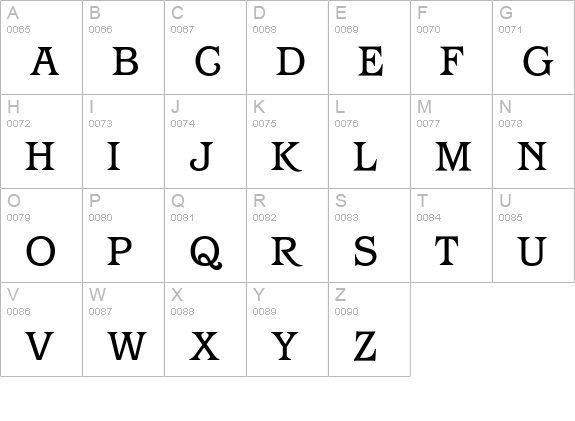
Barcelona* Book is a comfortable, highly readable variant in the Barcelona* typeface family \xE2\x80\x94 well suited to long-form body text, articles, and editorial content.
Barcelona Book font is a modern and elegant typeface that exudes sophistication and style. Its sleek lines and sharp edges make it perfect for a wide range of design projects, from branding to editorial design. Barcelona Book font strikes the perfect balance between readability and personality, making it a versatile choice for both print and digital media. What sets Barcelona Book font apart is that it is available for free download at FontsMarket.com, allowing designers and creatives to access this high-quality typeface without any cost. With its timeless design and classic appeal, Barcelona Book font is sure to elevate any project and leave a lasting impression on viewers. Whether you're working on a poster, website, or logo, Barcelona Book font is the perfect choice for adding a touch of sophistication and flair to your designs.